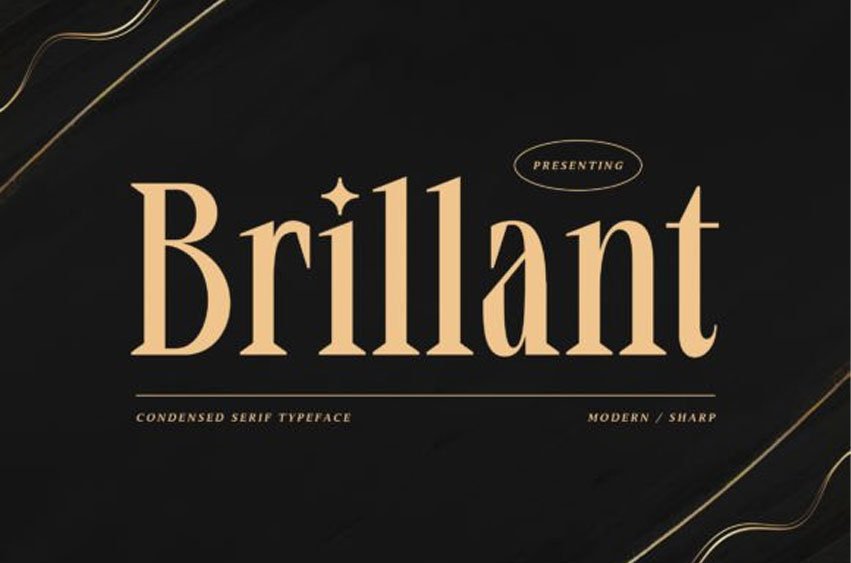
Brillant Condensed Font is a sleek and modern condensed serif typeface that exudes sophistication and style. With its clean lines and elegant curves, this font is perfect for any design project that requires a touch of refinement.